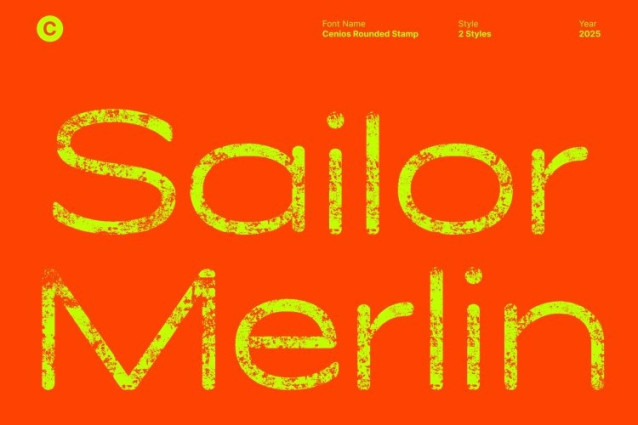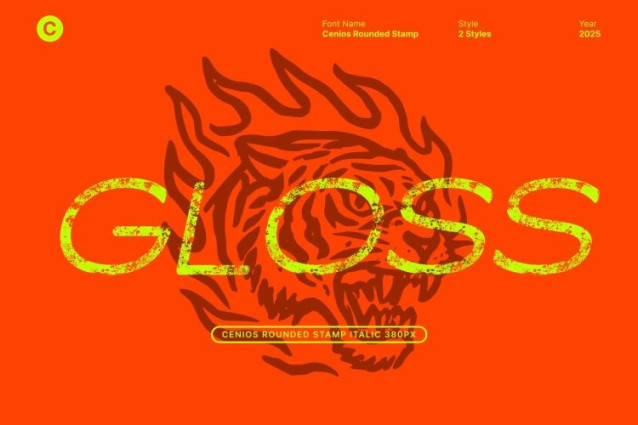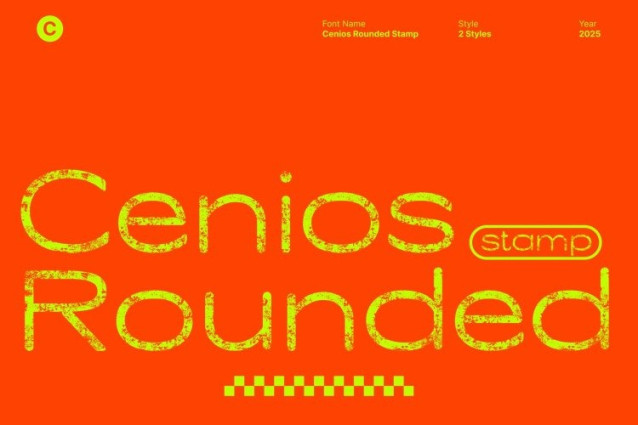
Cenios Rounded Stamp Font
Cenios Rounded Stamp Font This is a modern sans serif font built on geometric construction and expanded letterforms. Its smooth curves and balanced proportions create a polished, contemporary appearance that radiates professionalism. The expanded width adds openness and confidence, making the font feel modern, and highly readable across various display applications.
Rounded Forms with Contemporary Style
The softly rounded edges give a friendly yet refined presence. This subtle roundness adds warmth to its geometric structure, creating a visual identity that feels approachable without losing its modern sophistication. The combination of precision and softness makes it ideal for brands seeking clarity with character.
Vintage-Inspired Stamp Texture for Added Depth
What makes this font stand out is its expressive stamp effect. The textured grain introduces a vintage, handcrafted quality that contrasts beautifully with the font’s structured geometry. Each letter carries unique stamped imperfections, enhancing visual depth and giving your typography an authentic, artistic feel that is both modern and retro at the same time.
Perfect for Editorials, Digital Design, and Modern Vintage Branding
This typeface thrives in editorial layouts, tech-forward digital design, retro-themed visuals, and modern-vintage branding concepts. Its blend of geometric clarity and textured character makes it ideal for logos, headlines, social media graphics, posters, and stylish packaging that want to feel professional yet creatively expressive.